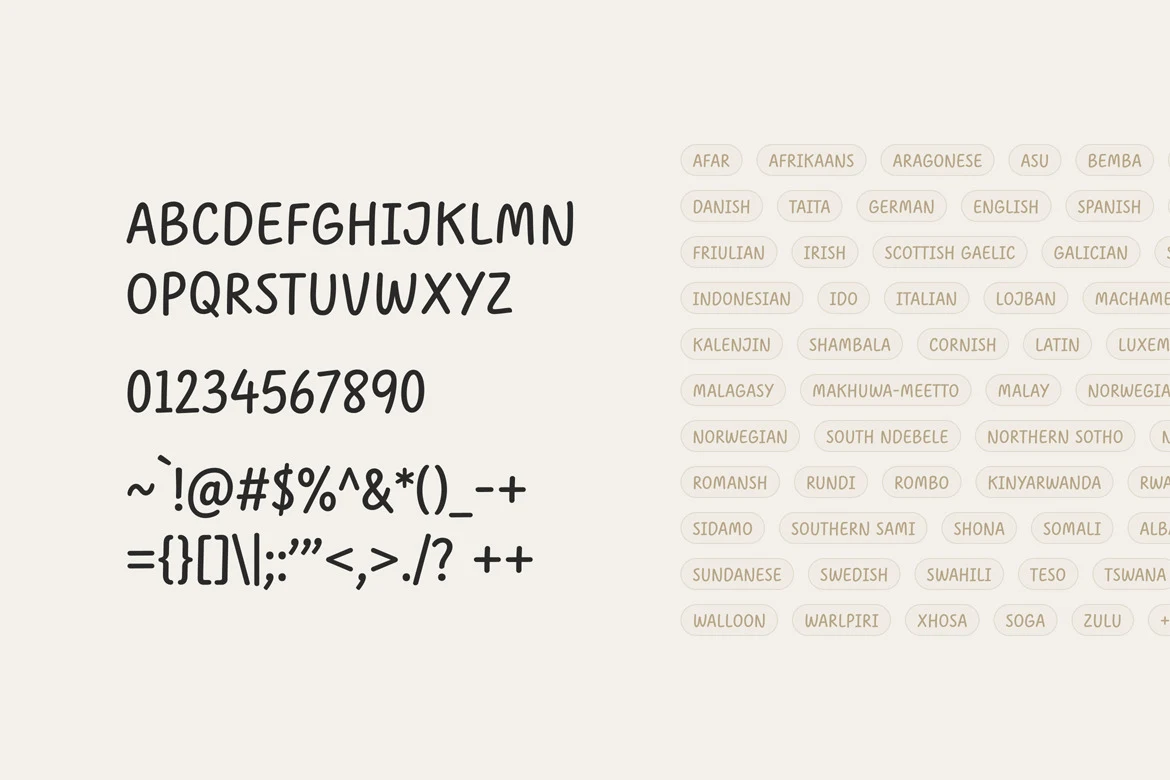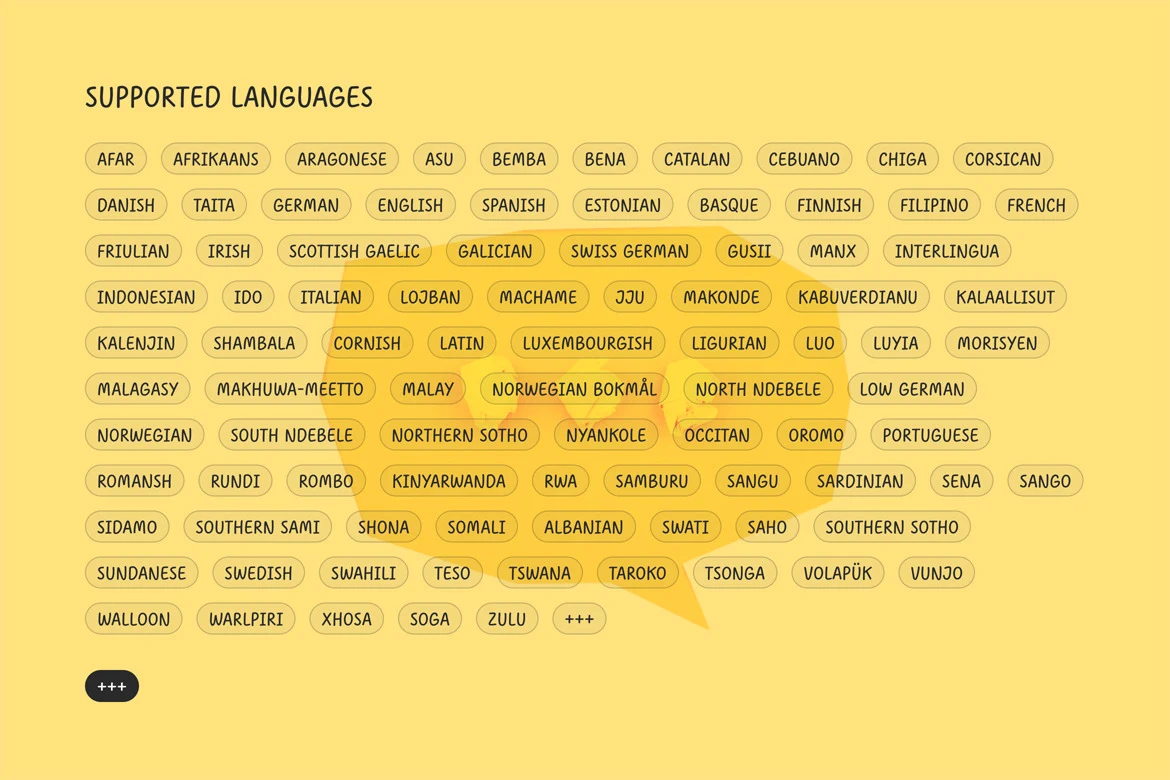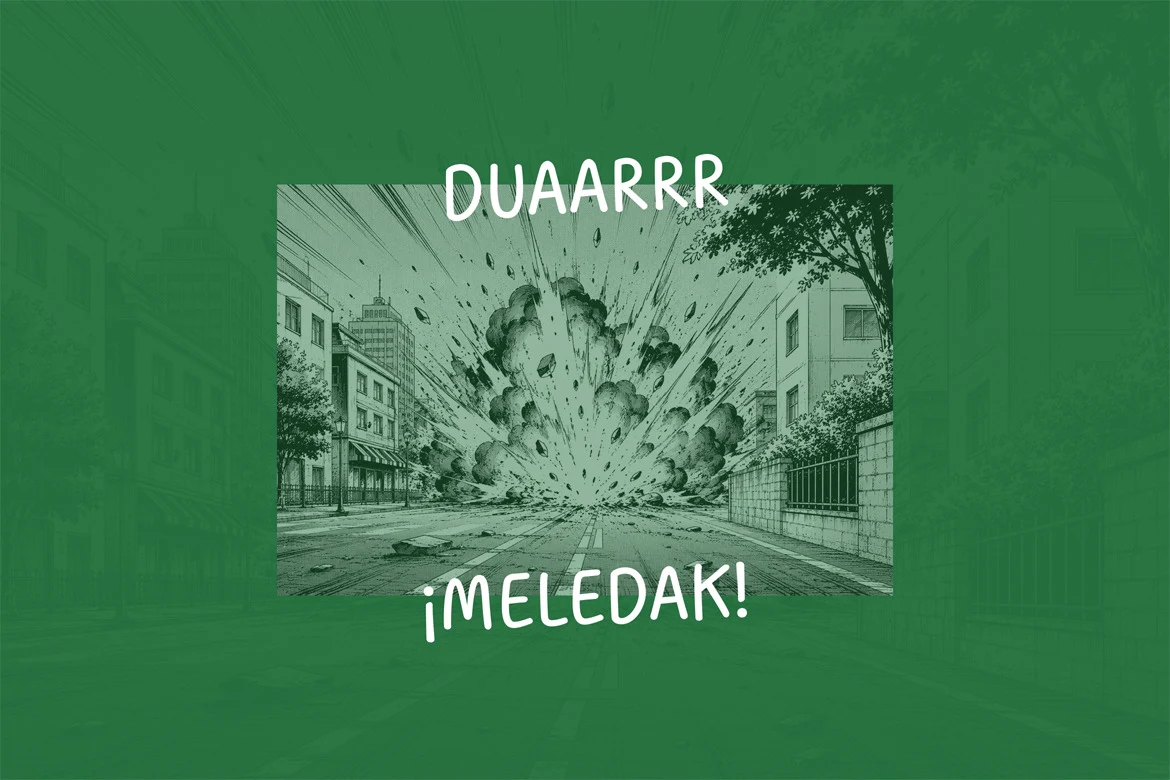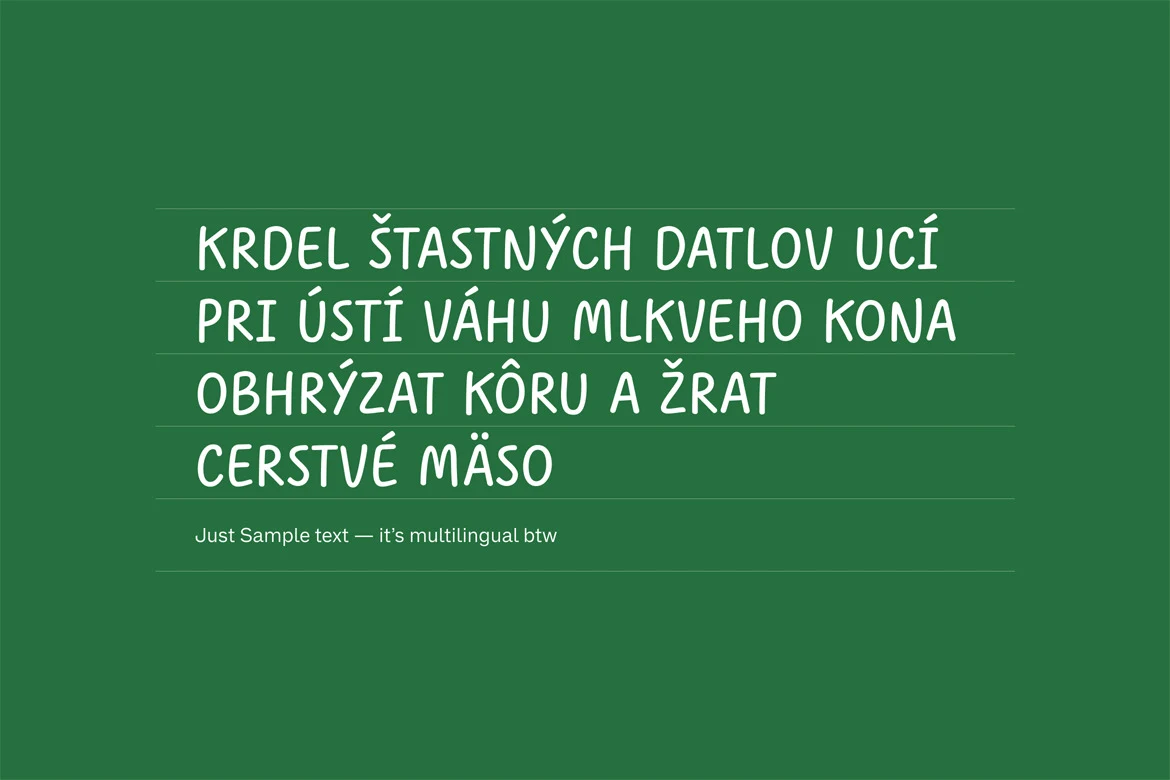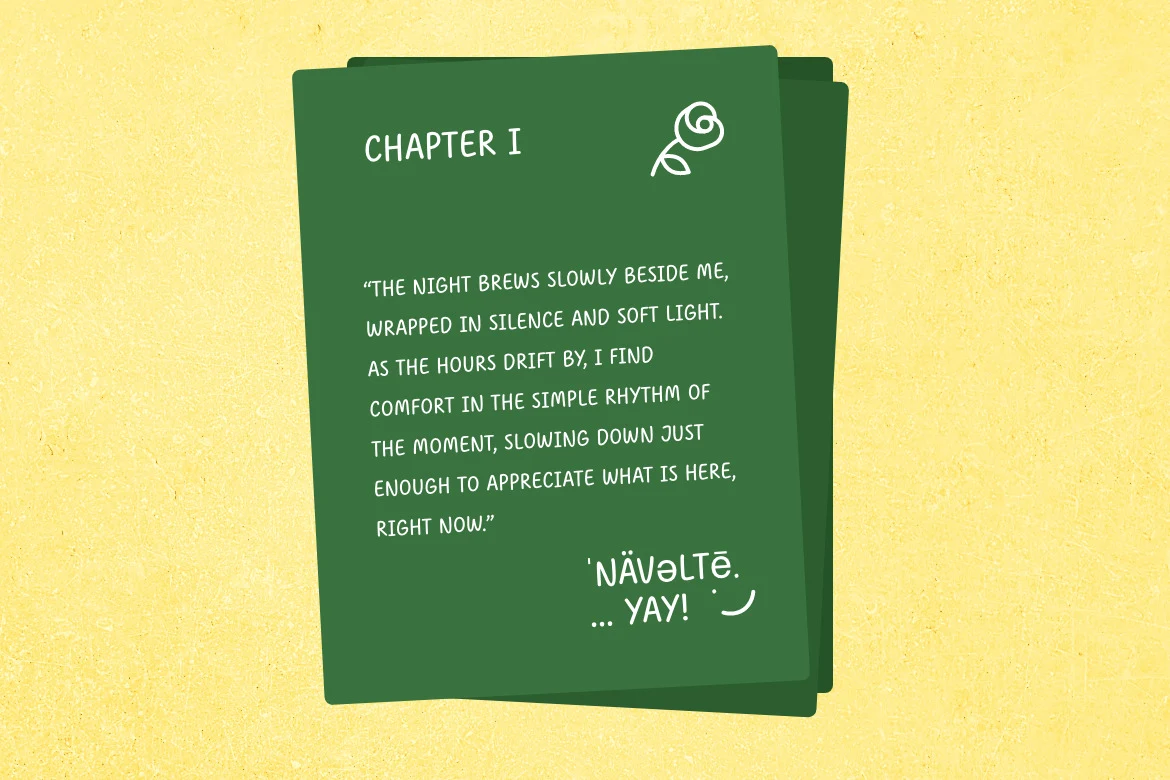
Kinley
Kinley is a casual, all-caps handwritten font crafted with soft edges and a relaxed rhythm. Designed to feel like quick daily lettering in a sketchbook, it keeps your typography friendly, legible, and personal.
It fits naturally into digital planners, recipe cards, craft labels, social notes, and small brand identities. The letterforms stay readable even in compact layouts, giving you room to share thoughts without feeling stiff.